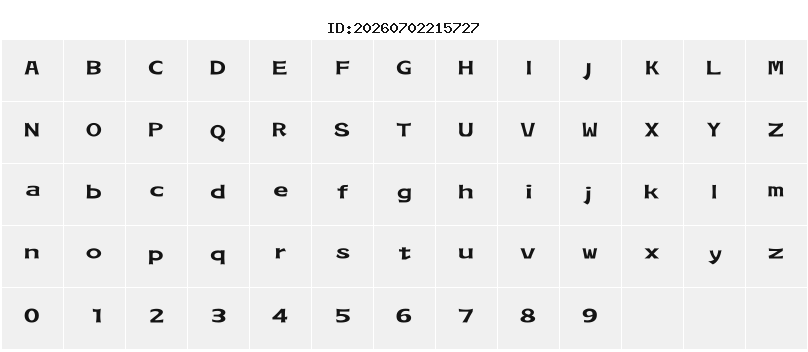
101-上首武士黑体 Preview
• Font Name: 101-上首武士黑体
• Font ID: 101-SS Wu Shi Hei Ti:Version 6.00
• Full Font Name: 101-上首武士黑体
• Version: Version 6.00 February 15, 2022
• PostScript Name: 101-SSWuShiHeiTi
• Character Count: 7569
• Manufacturer: 上首造字
About 101-上首武士黑体.ttf
101-上首武士黑体.ttf is a modern, elegant sans-serif font designed for ultimate readability and visual harmony. Perfect for branding, headlines, web design, and print materials.